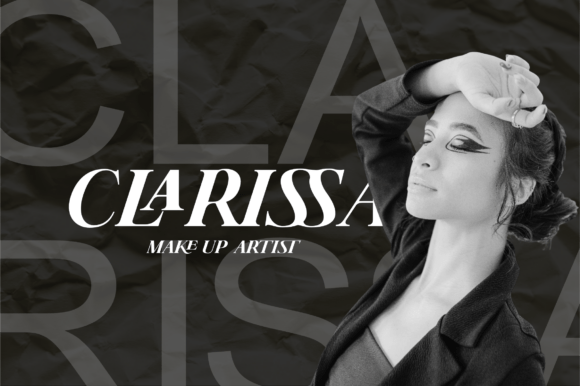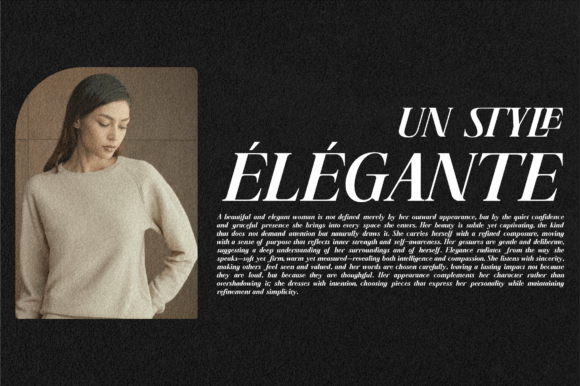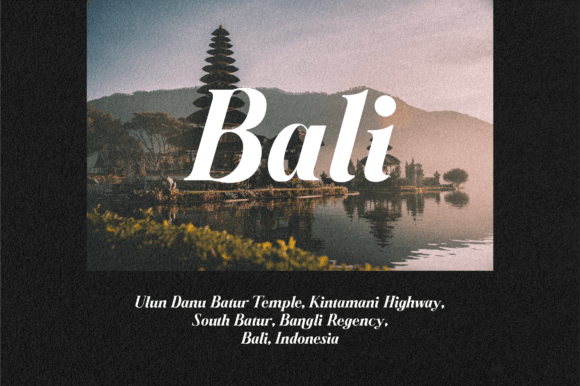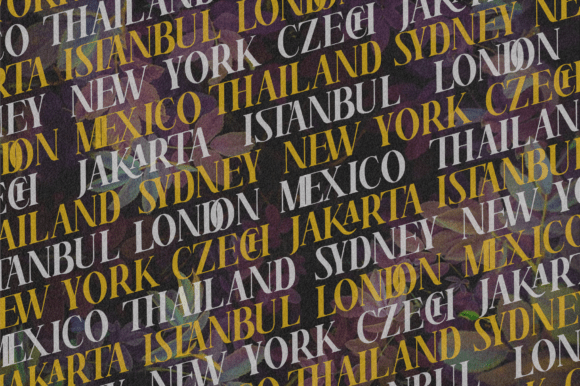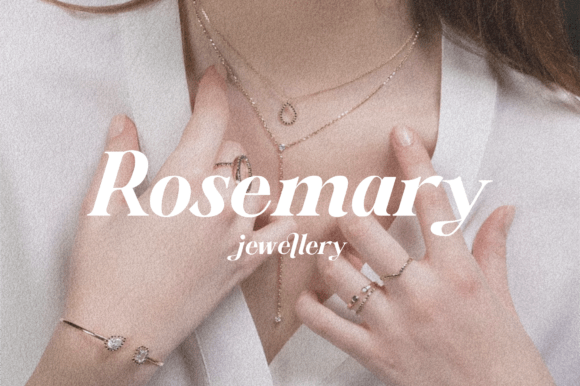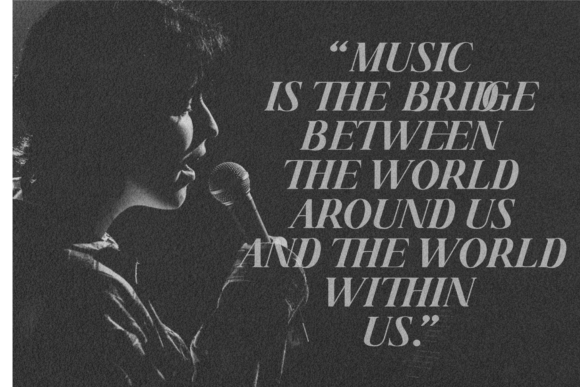
Introduction to Marvella Luxe Font
Marvella Luxe, an exquisitely elegant serif typeface crafted for designers who seek sophistication with a bold, modern twist.
This font features stunning ligatures, refined curves, and a luxurious flow that elevates any visual composition With its graceful letterforms and stylish spark-like accents, Marvella Luxe is perfect for branding, editorial layouts, fashion projects, packaging, logos, and high-end visual identities.
Key Features of Marvella Luxe Font
Why Choose Marvella Luxe Font?